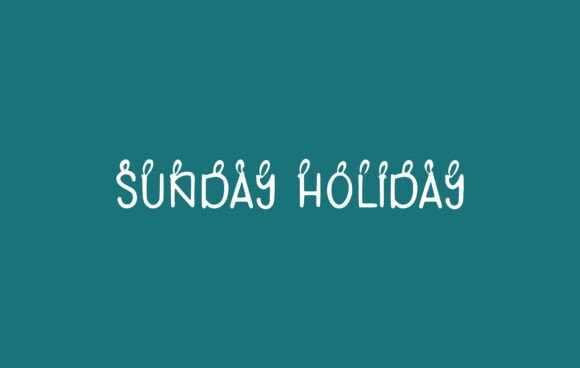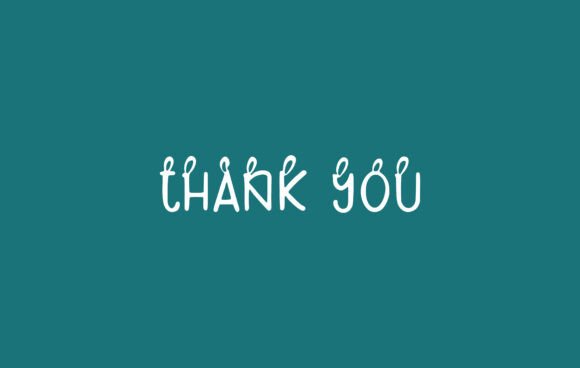
Alejandro Font: Elevate Your Designs with a Romantic Handwritten Touch
In the world of typography, a well-crafted font can make all the difference in bringing your creative ideas to life. If you’re a designer or crafter looking for a unique and authentic handwritten font with a romantic touch, look no further than Alejandro Font. This beautifully designed font is sure to capture your heart and take your designs to new heights.
What Makes Alejandro Font Special?
Alejandro Font is an expertly designed handwritten font that exudes a sense of romance and elegance. Its authentic feel makes it perfect for a wide range of design projects, from magazine headlines and social media graphics to branding, wedding invitations, and cards. The font’s legibility and versatility make it an excellent choice for both title and body text, allowing you to use it in various contexts.
Key Features of Alejandro Font
- Authentic Handwritten Feel: Alejandro Font boasts a genuine handwritten look that adds a personal touch to your designs.
- Romantic Touch: The font’s elegant and flowing lines evoke a sense of romance, making it perfect for designs that require a touch of sophistication.
- Legible and Versatile: Whether you use it as a title or body text, Alejandro Font is easy to read and looks great in various design contexts.
- Wide Range of Applications: From magazine headlines and social media graphics to branding, wedding invitations, and cards, this font is suitable for numerous design projects.
Why Choose Alejandro Font?
With so many fonts available, why should you choose Alejandro Font for your next design project? Here are a few compelling reasons:
- Unique and Eye-Catching: Alejandro Font’s distinctive handwritten style will set your designs apart from the crowd and grab the attention of your audience.
- Easy to Use: This font is designed to be user-friendly, making it easy to incorporate into your designs, even if you’re not a seasoned typography expert.
- High-Quality Design: Alejandro Font is crafted with attention to detail, ensuring that it looks great in various design contexts and resolutions.
Design Ideas with Alejandro Font
Now that you’re familiar with Alejandro Font’s features and benefits, let’s explore some design ideas to get you started:
- Wedding Invitations: Add a touch of romance to your wedding invitations and stationery with Alejandro Font.
- Social Media Graphics: Elevate your social media presence with eye-catching graphics featuring Alejandro Font.
- Branding and Packaging: Use Alejandro Font to create a unique and memorable brand identity for your business.
- Magazine Headlines: Add a touch of elegance to your magazine headlines with Alejandro Font.
- Crafting and DIY Projects: Incorporate Alejandro Font into your crafting and DIY projects, such as handmade cards, gift tags, and more.
In conclusion, Alejandro Font is an exceptional handwritten font that can elevate your designs and bring a touch of romance to your creative projects. Its unique features, versatility, and ease of use make it an excellent choice for designers and crafters alike. Whether you’re working on a wedding invitation, social media graphic, or branding project, Alejandro Font is sure to impress. So why wait? Give Alejandro Font a try today and take your designs to the next level!